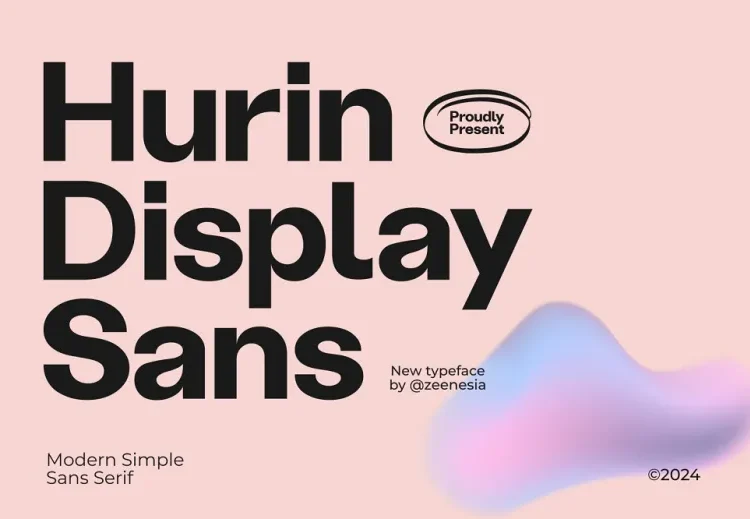
Hurin Font
Hurin is a refined and elegant sans serif font that epitomizes the principles of contemporary design through its understated simplicity. Its clean, smooth lines offer a modern aesthetic, adding a touch of grace and sophistication to any text and ensuring it captures attention and engages viewers effectively.
The meticulously crafted curves of Hurin enhance its visual appeal, providing a harmonious and pleasing typographic experience. This font is ideal for use in various design contexts, from sophisticated editorial layouts to sleek branding materials. Its versatility allows it to serve as a subtle yet impactful background for your creative narratives, helping your ideas to come to life in a polished and professional manner.
Hurin Font